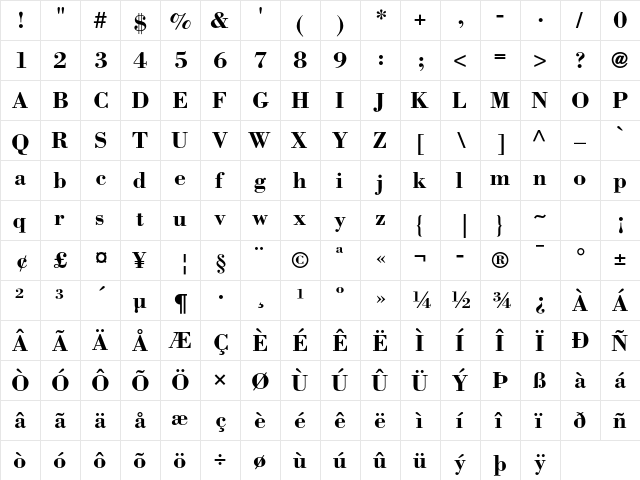
Bodoni Std Bold
| Designer | Morris Fuller Benton |
Design Context for Bodoni Std Typeface
Bodoni Std offers clean, dependable letterforms without strong stylistic allegiance, making it a practical choice for designers who need flexibility. Its bold stroke weight gives it real presence on the page.